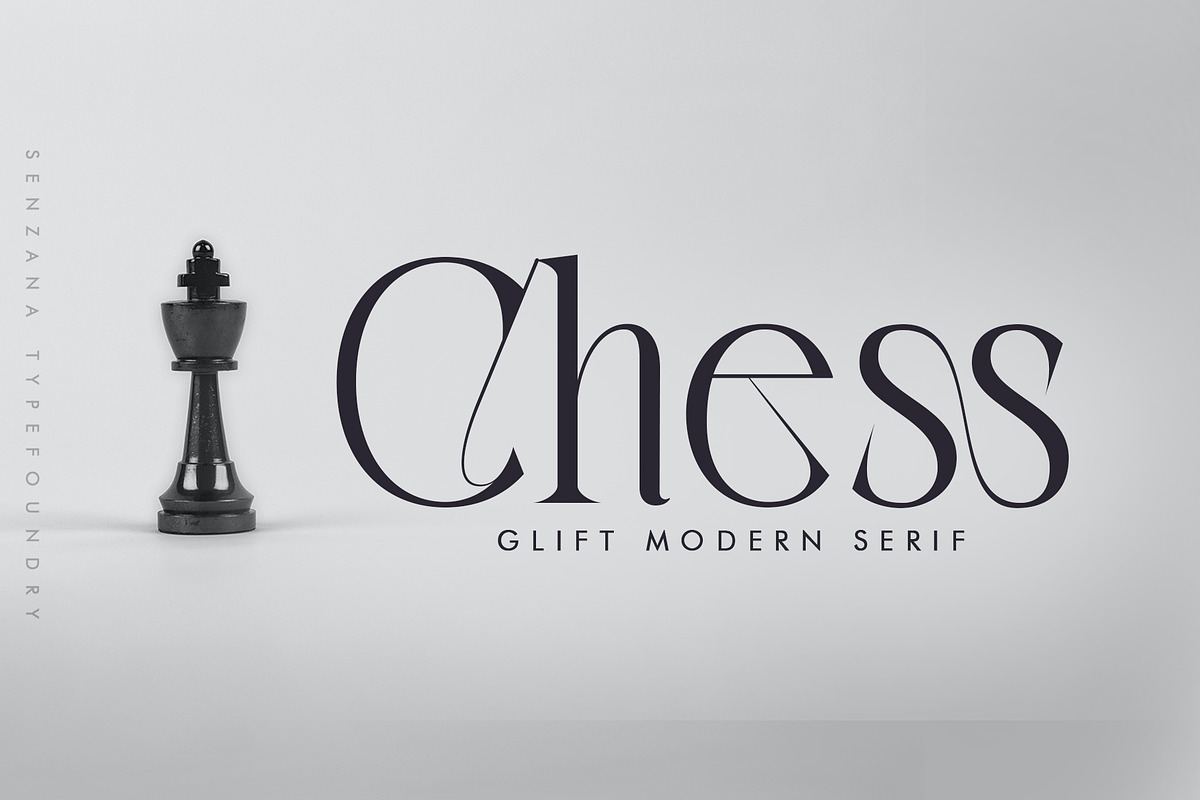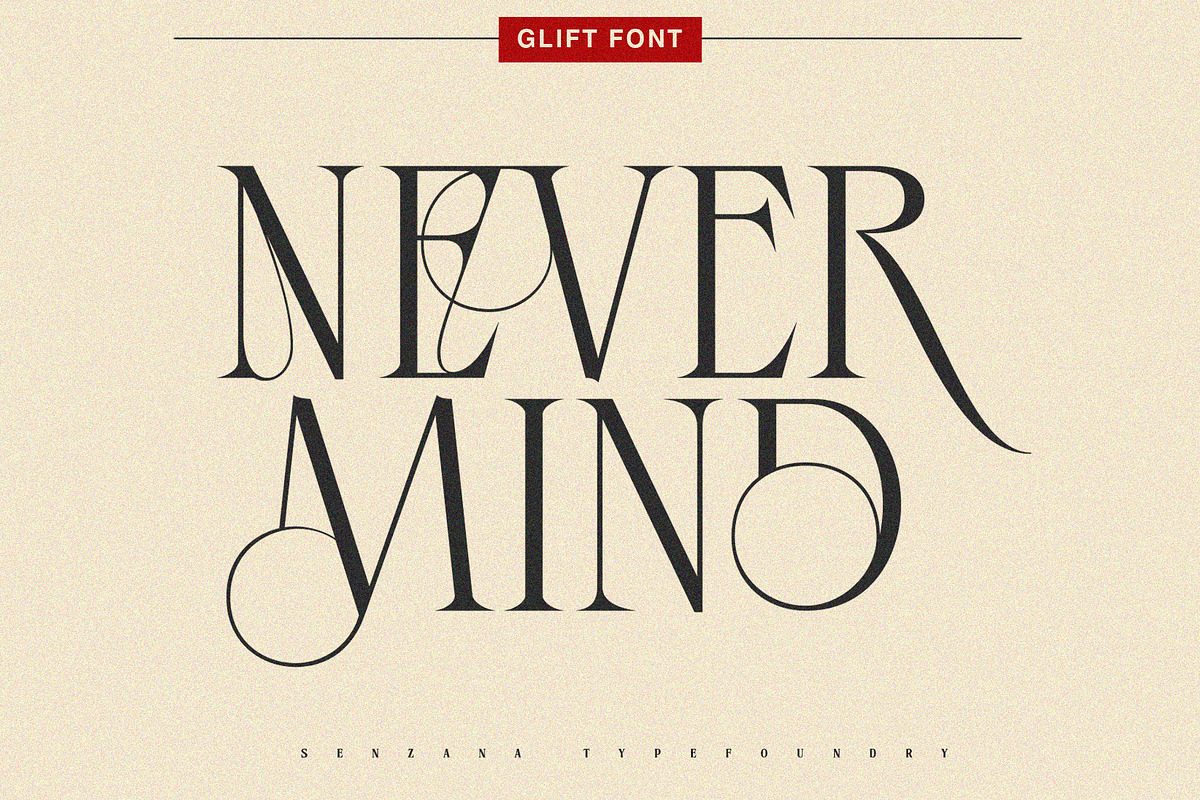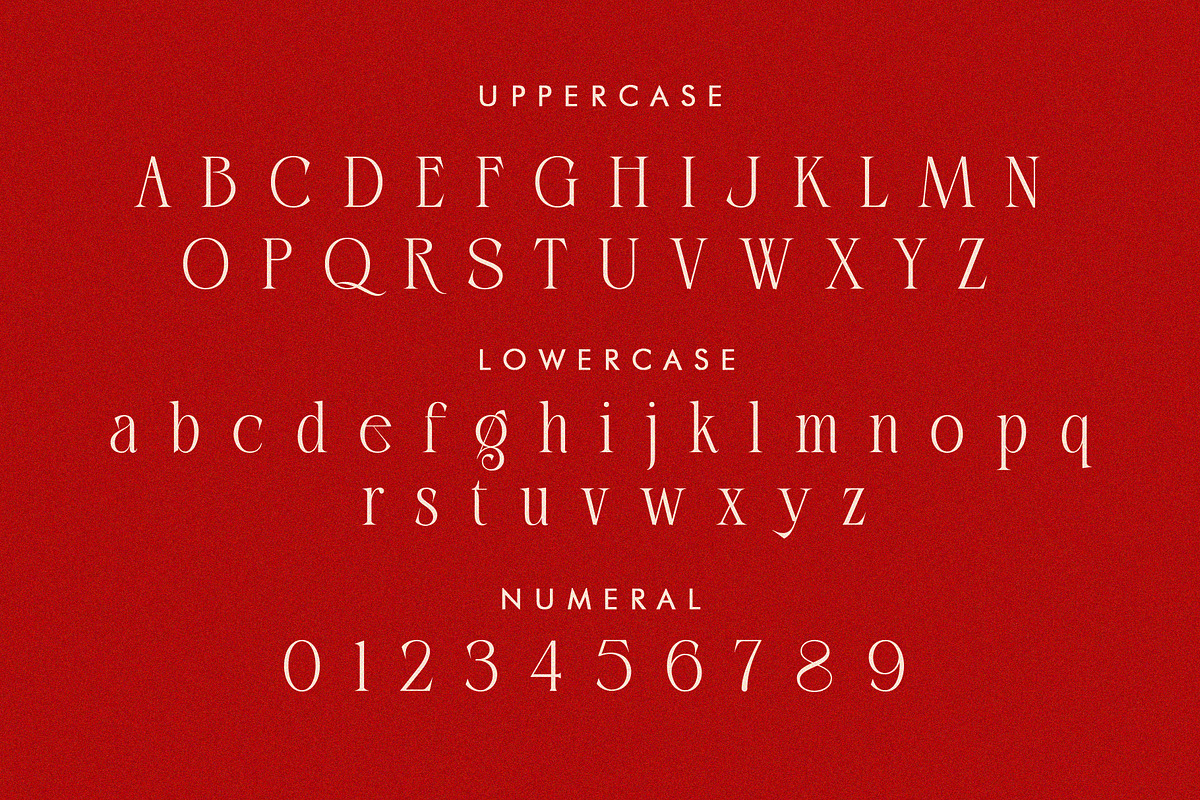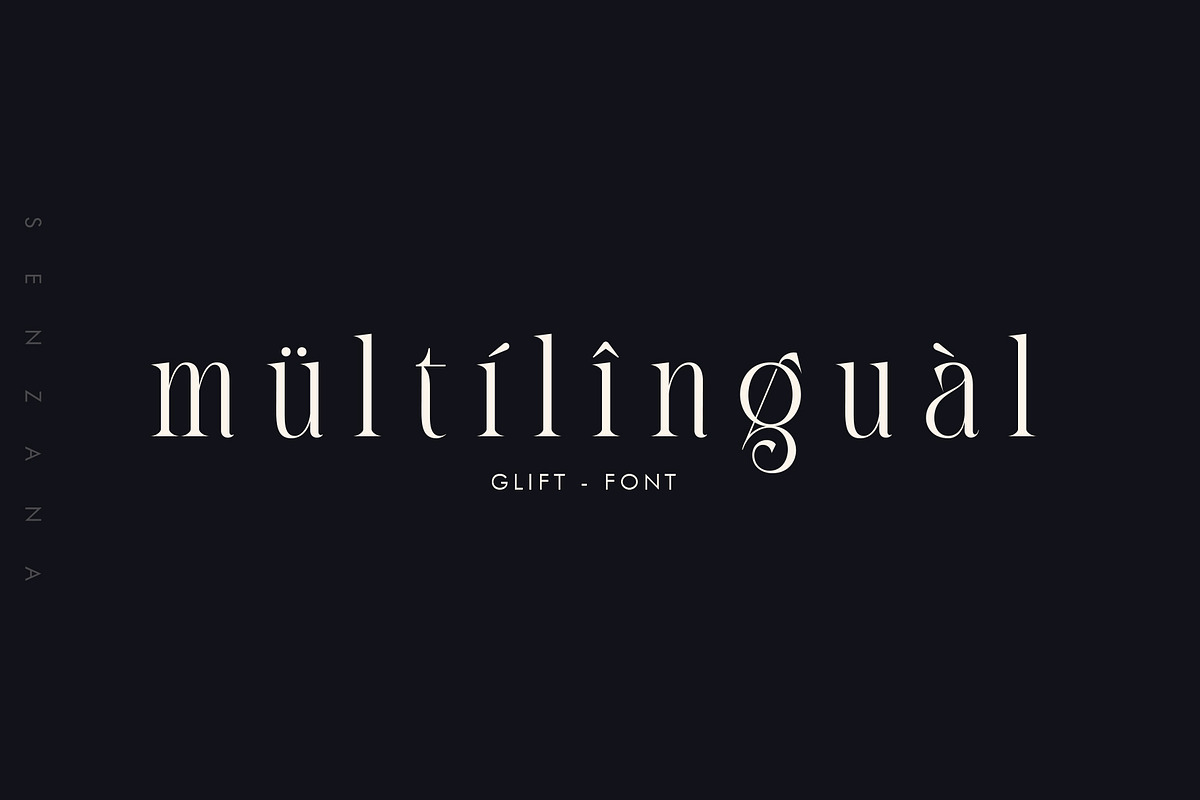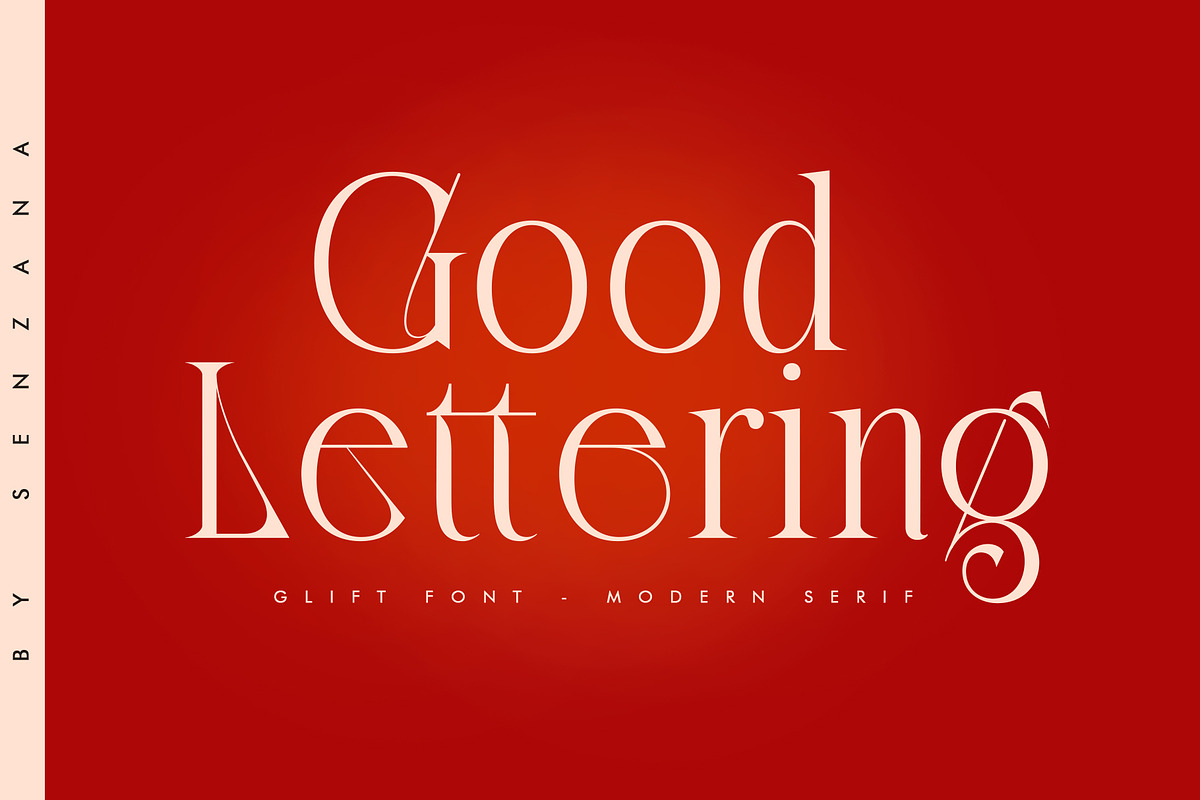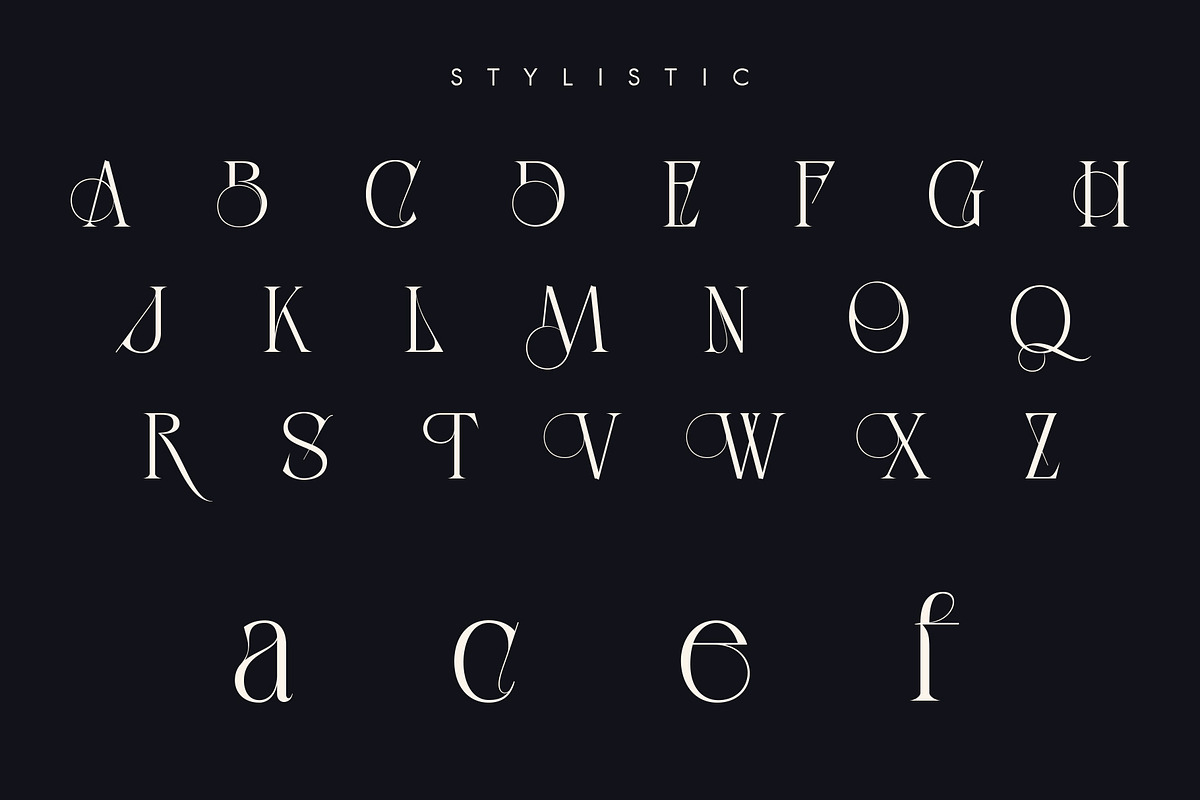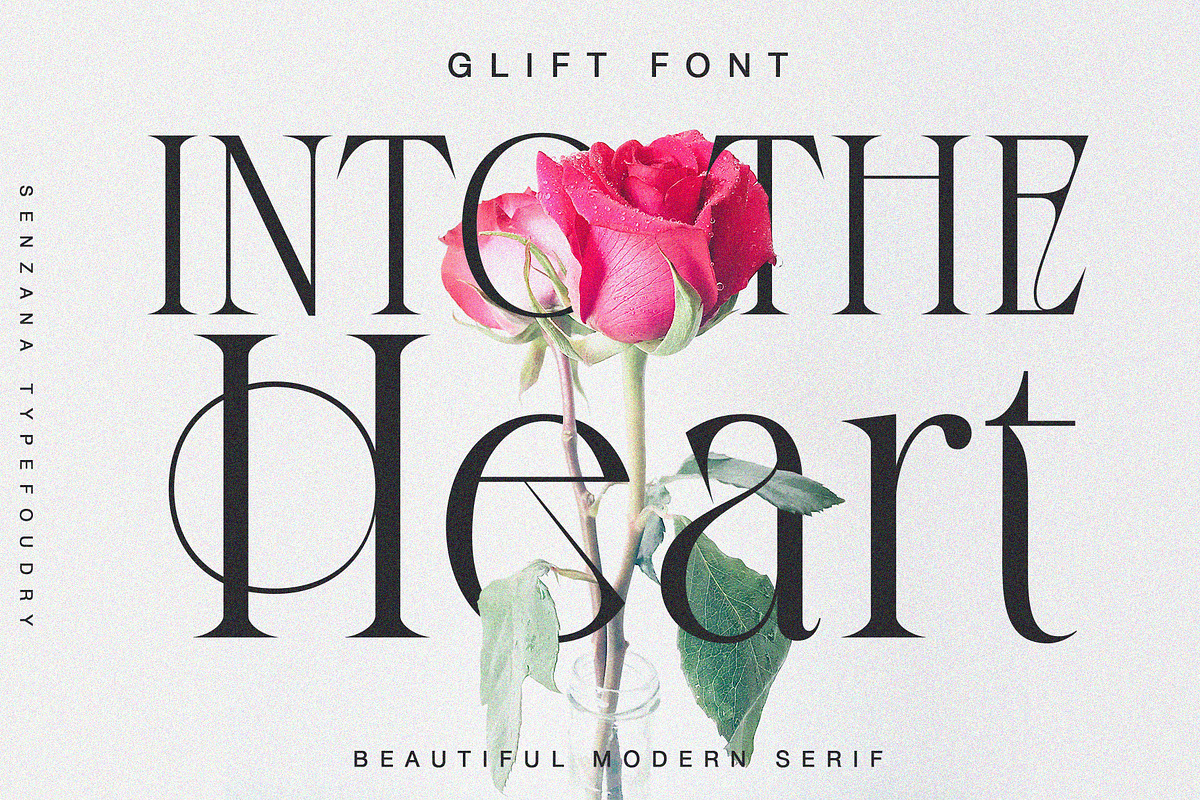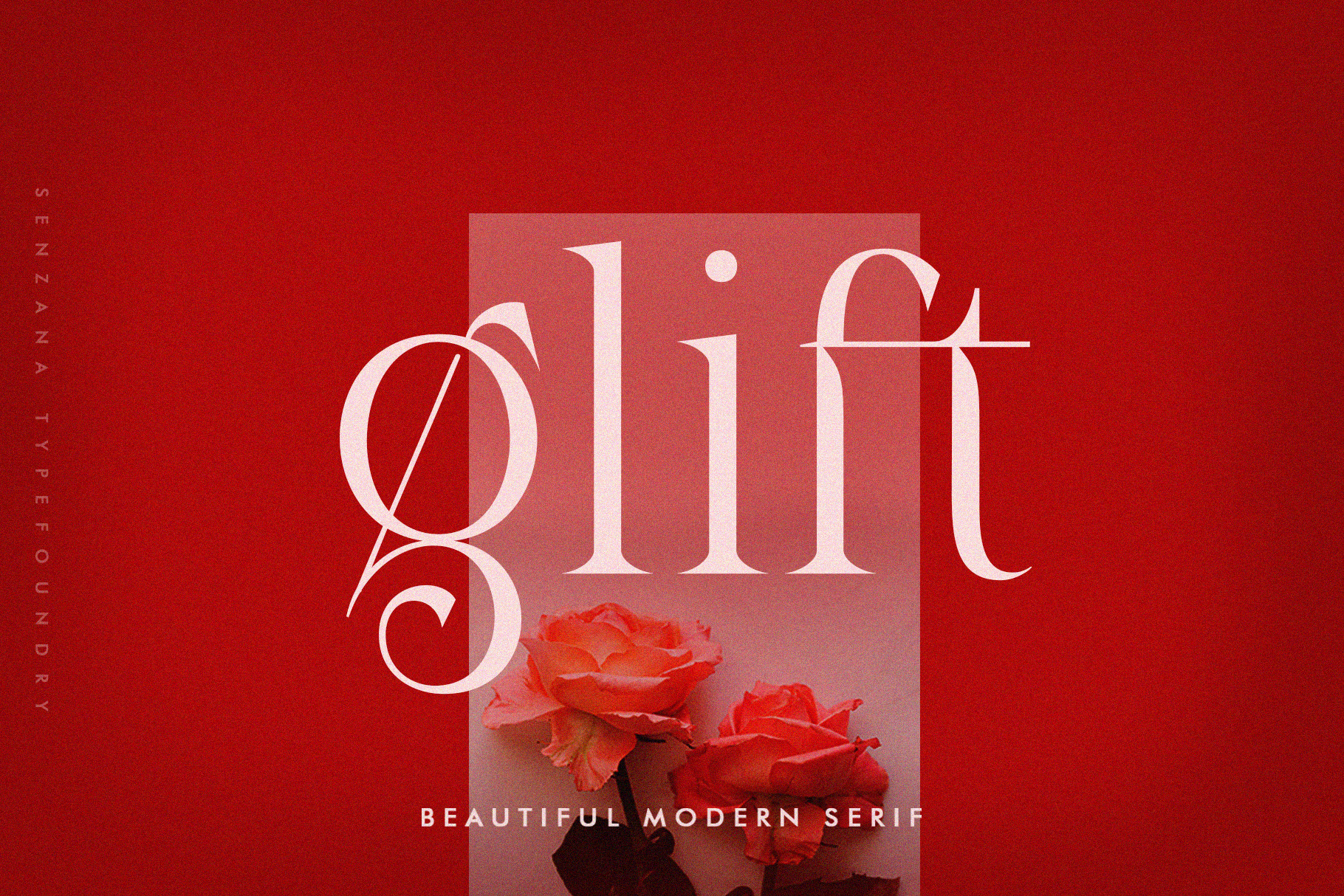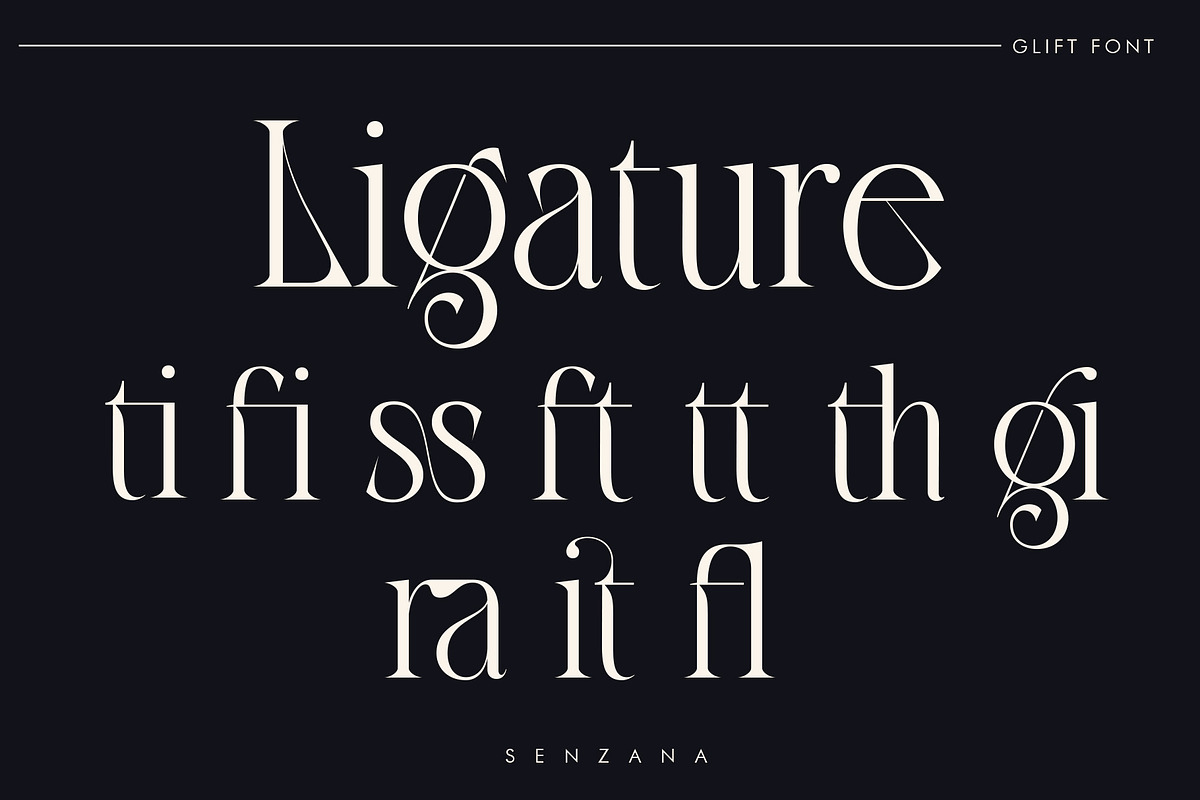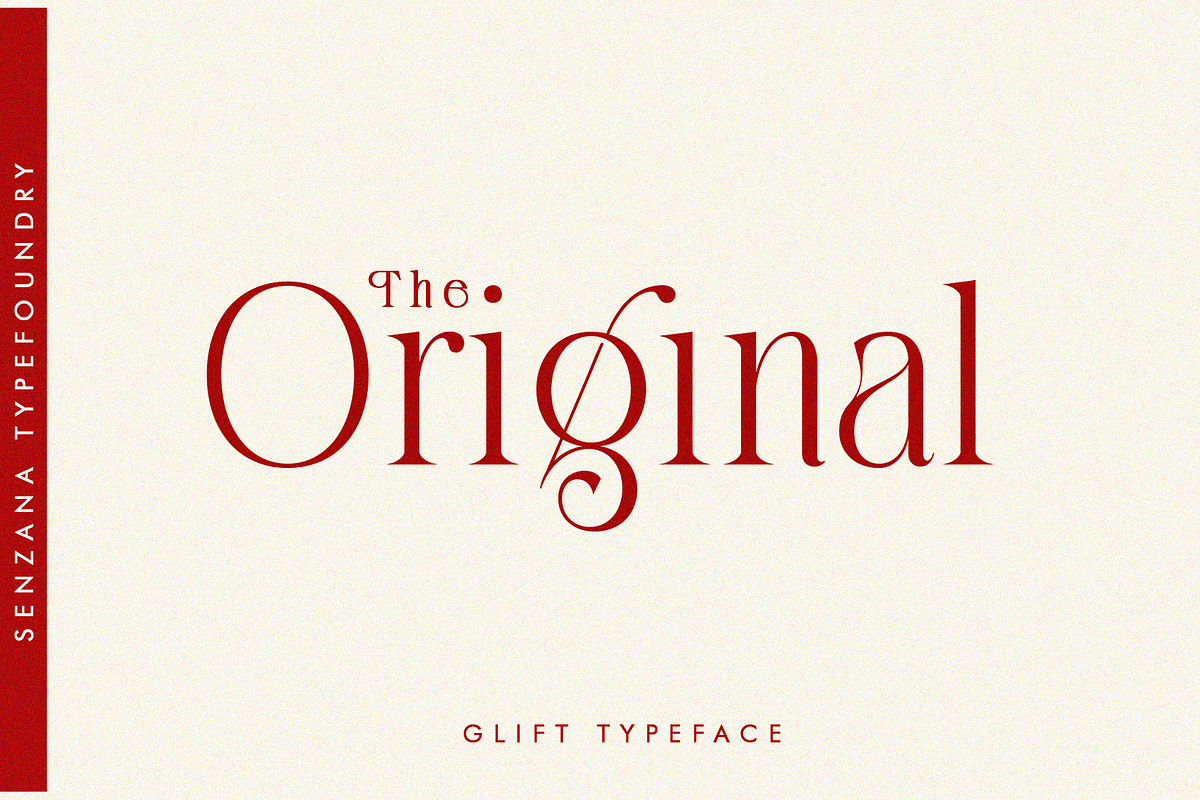
glift font
Hello everyone! on this occasion I would like to introduce a new font, which is called "glift" This font has a modern, vintage and beautiful style.
- Numeral
- Functional
- Stylistic